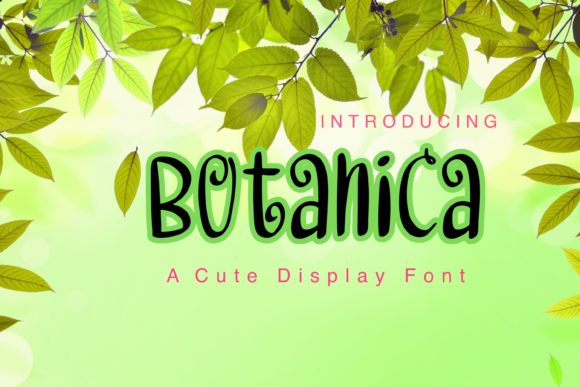
Journey into the enchanting world of Botanica Font, a whimsical and warm display font designed to capture the magic of childhood and bring a smile to your face. Crafted by the talented AfifShop, Botanica Font is the perfect choice for adding a touch of playfulness and joy to your creative projects.
With its charming and inviting curves, Botanica Font exudes a sense of wonder and innocence, making it an ideal font for kids' birthday invitations, greeting cards, and party decorations. Its playful and carefree nature will instantly add a festive touch to any design, creating an atmosphere of celebration and excitement.
Imagine the delight on your child's face when they receive a birthday invitation adorned with the whimsical characters of Botanica Font. The font's cheerful and friendly appearance will instantly grab their attention and set the tone for a memorable celebration.
But Botanica Font's charm is not limited to kids' designs. Its versatility and captivating style make it a versatile choice for a wide range of creative projects, from personal branding and social media graphics to website designs and product packaging. Whether you're creating a playful logo, designing a cheerful flyer, or crafting a captivating social media post, Botanica Font will add a touch of magic and personality to your work.